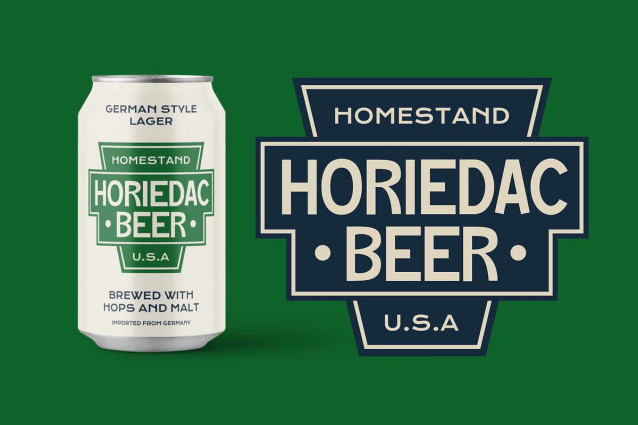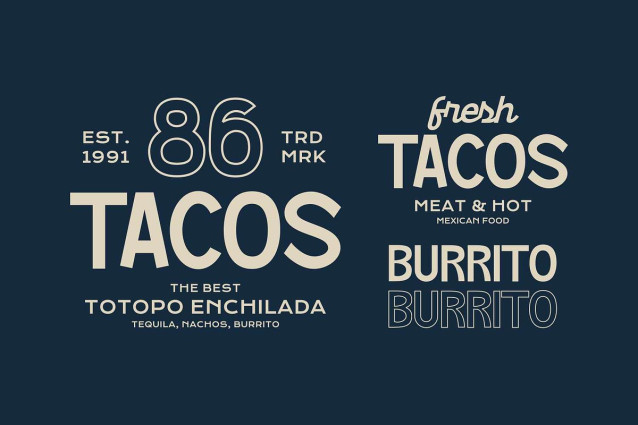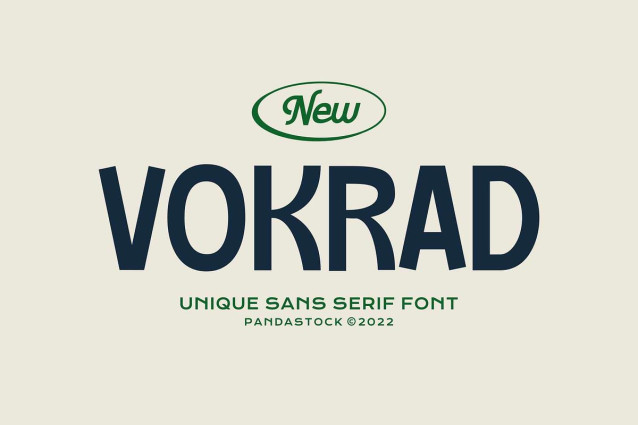
Vokrad Font
Vokrad Font, a minimal sans serif font that effortlessly blends vintage charm with modern clarity.You can use it as a logo, badge, insignia, packaging, headline, poster, t-shirt/apparel, greeting card, and wedding invitation.